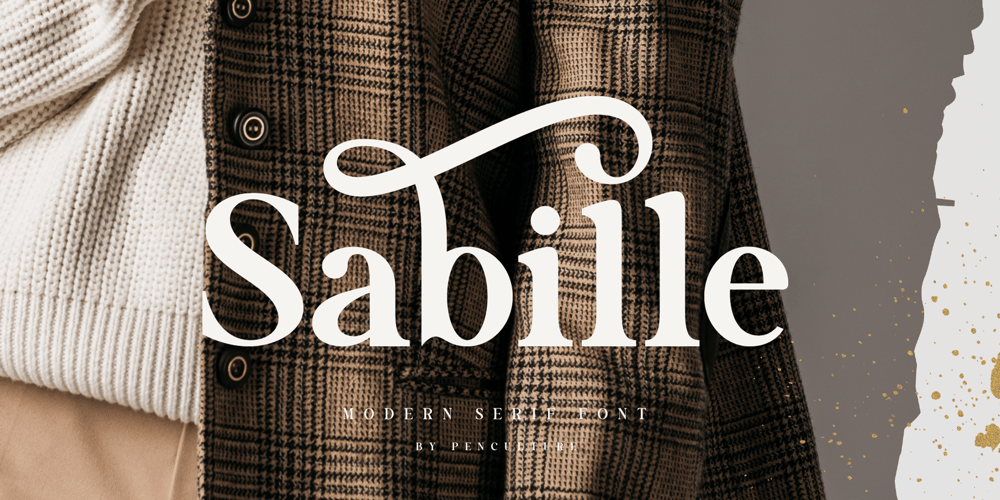
Sabille Font Family was designed by Revo Farsiky and published by Pen Culture. Sabille contains 1 styles and family package options. Proudly present “Sabille – Modern Serif Font”Sabille is a modern serif font that come with awesome alternate that perfect for an kind design project such a branding, cricut project, invitation, embroidery and many others.I really hope you enjoy it – please do let me know what you think, comments & likes are always hugely welcomed and appreciated. More importantly, please don’t hesitate to drop me a message if you have any issues or queries.Thank you